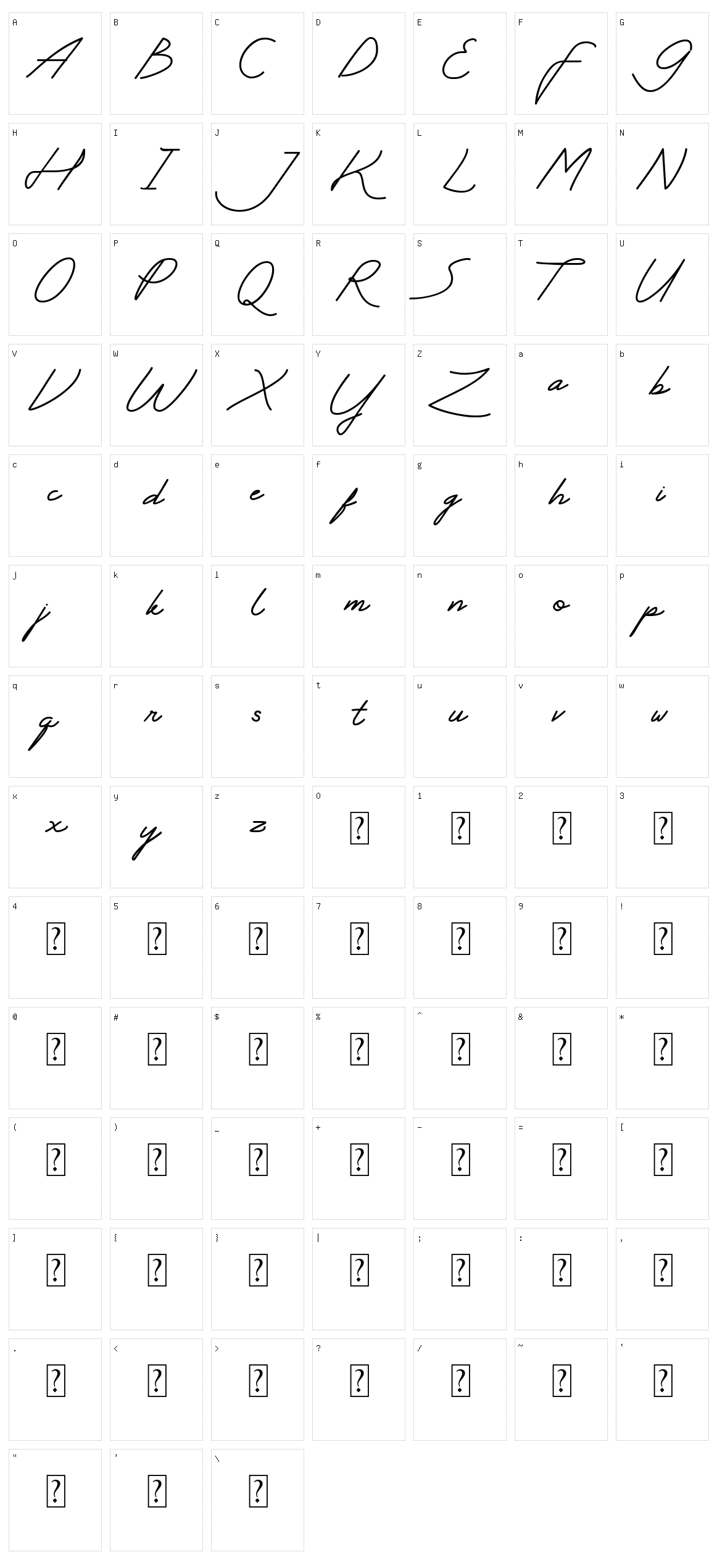
The free font My Ugly Handwritting is carefully designed by Luxima Creative Studio, showcasing a thoughtful balance of creativity and usability and falls under the Script font style. When you download the ZIP file, it contains only 34.46 KB of font files, making it lightweight and quick to download. Please review the license details below to understand permitted usage and distribution rights. If license information is not available, we recommend using this font for personal projects only or contacting the author directly for commercial usage permissions.